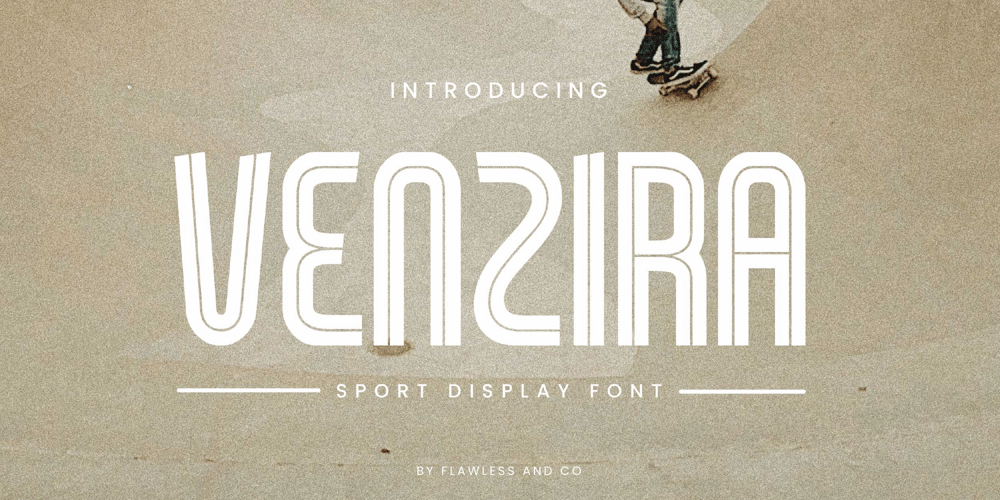
Venzira Font Family was designed by Achmad Yani and published by Flawlessandco. Venzira contains 1 styles and family package options. Introducing “Venzira,” a sports running font designed to capture the dynamic energy and excitement of the game. With its bold that combined with line and athletic letterforms, Venzira is perfect for any sports branding, team jerseys, posters, running events, football events, or other sports events, and more, ensuring your designs stand out with a powerful and energetic presence.There’s some connected letters and some alternates that suitable for any graphic designs such as branding materials, t-shirt, print, business cards, logo, poster, t-shirt, photography, quotes .etcThis font support for some multilingual. Also contains uppercase A-Z and lowercase a-z, alternate character, numbers 0-9, and some punctuation.If you need help, just write me! Thanks so much for checking out my shop!